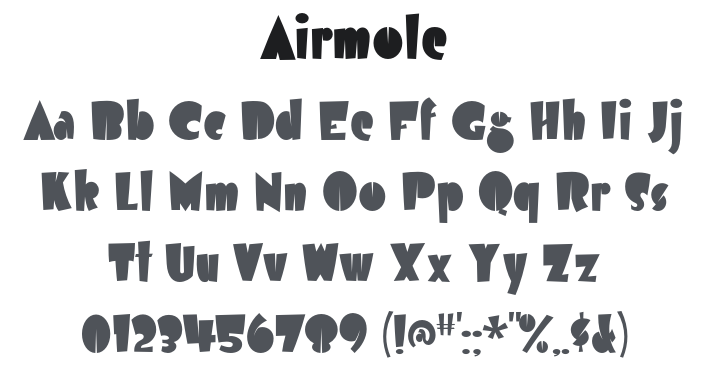
Airmole Font Family
About Airmole
Airmole is a heavy display font family inspired by early 20th century hand lettering manuals, featuring distinctive narrow slits instead of the usual open counters. It comes in four styles — Normal, Striped, Shaded, and Antique — giving it versatile range. Great for vintage branding, theatrical posters, retro logos, signage, and any display work that needs old-world charm with decorative flair.